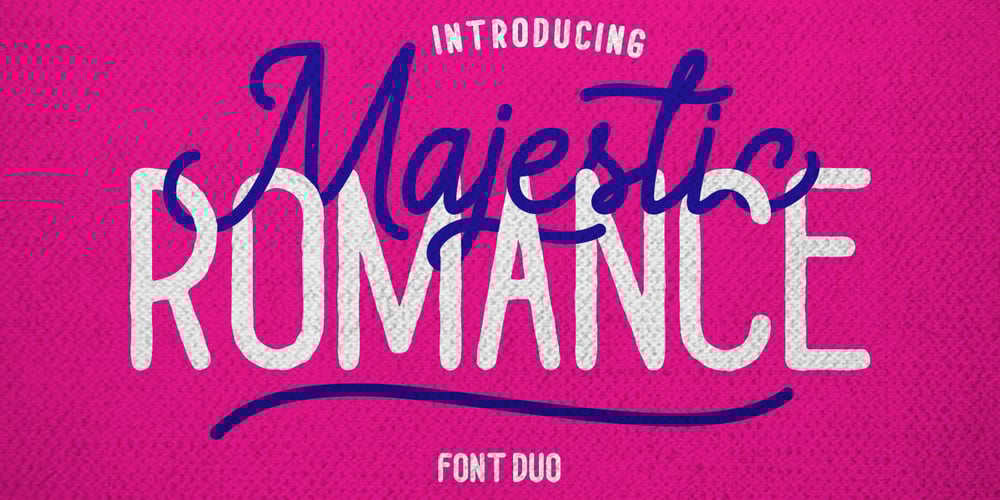
Majestic Romance
Majestic Romance font
Majestic Romance Font Family was designed by Suandana ipandemade and published by madeDeduk. Majestic Romance contains 6 styles and family package options. Majestic Romance is a gorgeous font duo consisting of a script and a sans serif font in two variation – regular and rough. Majestic Romance is perfect for poster design, book covers, merchandise, fashion campaigns, newsletters, branding, advertising, magazines, greeting cards, album covers, and quote designs and more.Feature UPPERCASE Lowercase Numbers & Symbol International Glyphs Alternative UPPERCASE Alternative Lowercase Ligatures Swashes If you need anything else or you require an upgraded license please contact dedukvic@gmail.com